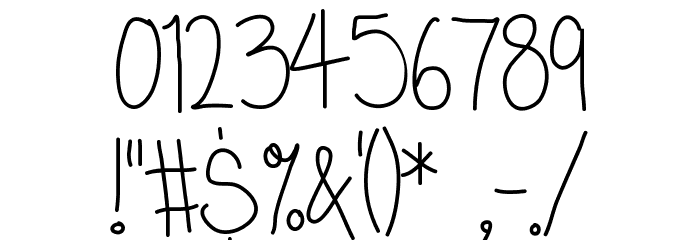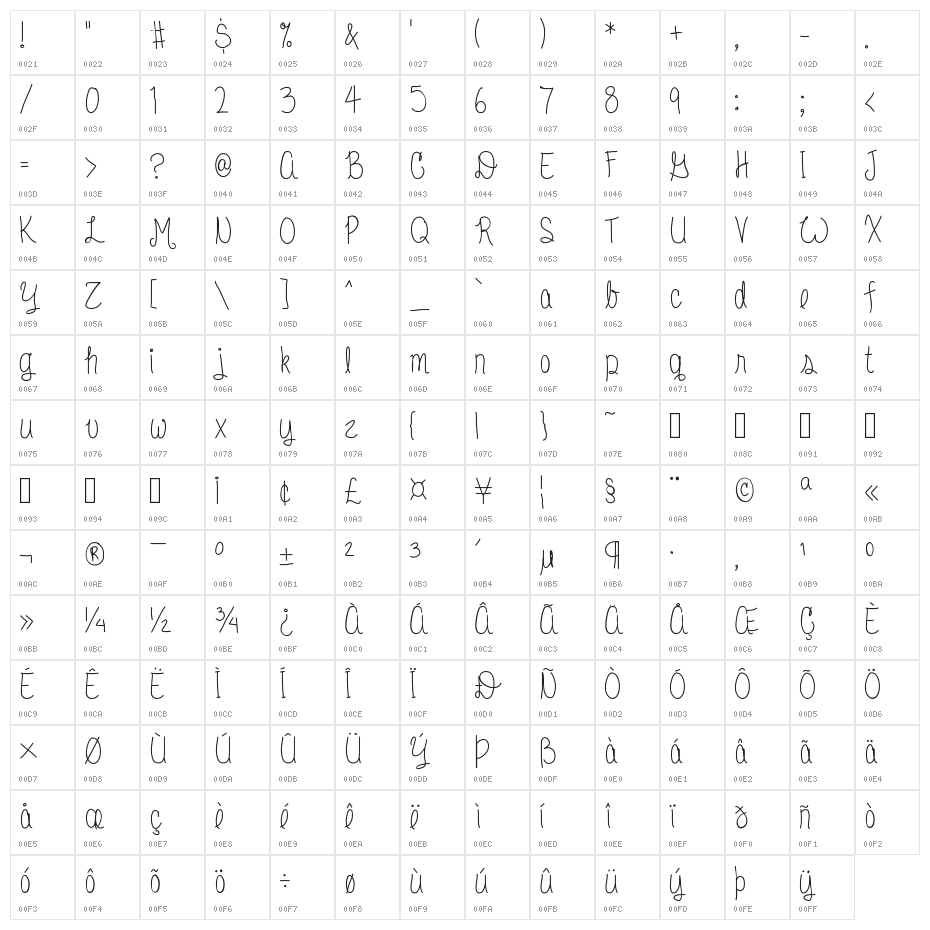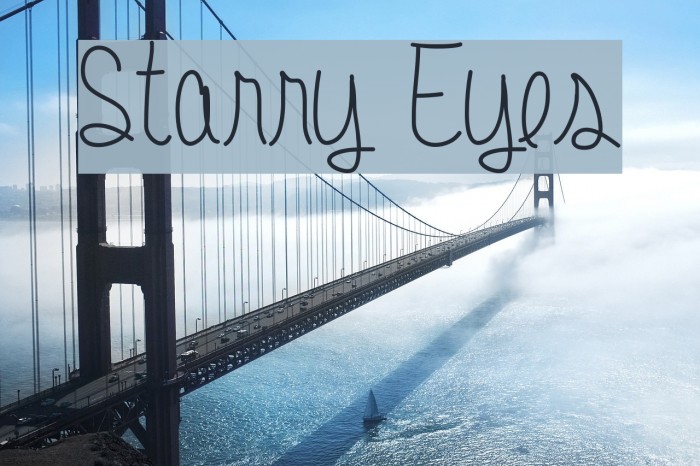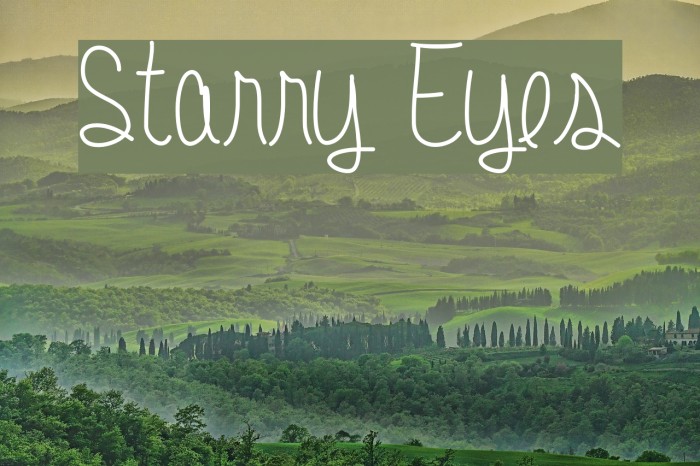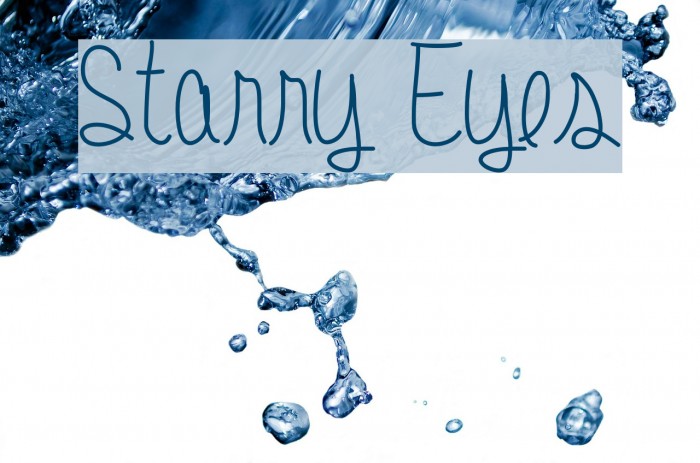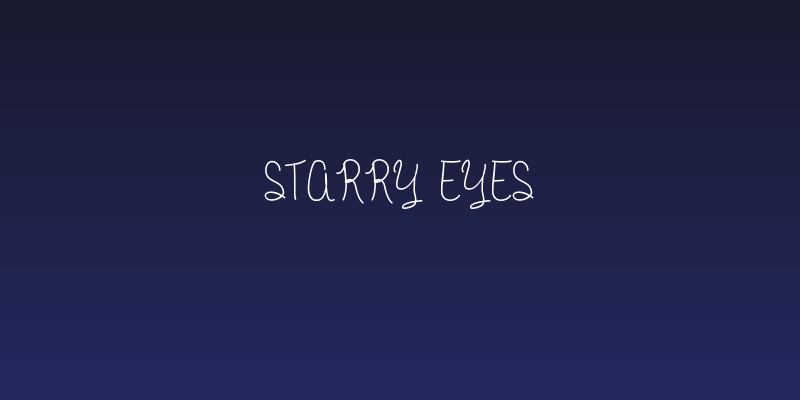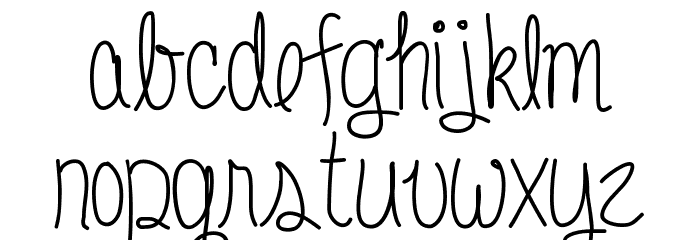
Starry Eyes Font
Starry Eyes Description
This font features a whimsical, handwritten style with playful loops and curves. The letters are tall and slender, giving them an elegant yet casual appearance. The uppercase letters have a distinct personality, with some characters featuring unique flourishes, such as the crossbar of the 'A' and the tail of the 'Q'. The lowercase letters maintain a consistent style, with rounded edges and a slightly uneven baseline that adds to the hand-drawn feel. The numerals are clear and legible, matching the overall aesthetic of the alphabet. Special characters are creatively integrated, maintaining the font's playful and artistic vibe.
Use CaseHeadlines, Logos, Creative projects
Proposed ProjectsIdeal for greeting cards, invitations, children's books, and creative branding projects.